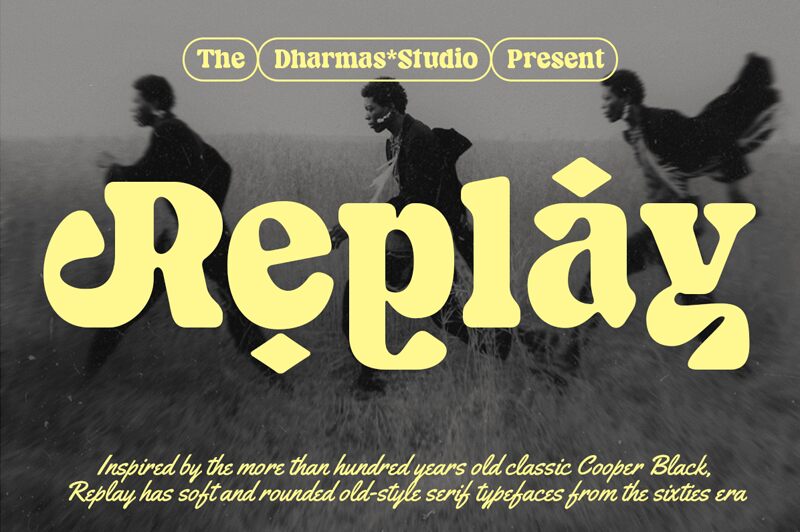
Replay, a bold and retro display font designed by Dharmas Studio, brings a nostalgic charm to any project.
With its eye-catching design, Replay is perfect for creating vintage-inspired logos and branding materials that evoke a sense of old-school cool. Its bold weight allows for striking headlines in posters and advertisements, while also adding character to packaging designs. Whether you're crafting an album cover or revamping your website with a touch of nostalgia, Replay is the go-to font that will leave a lasting impression on your audience.